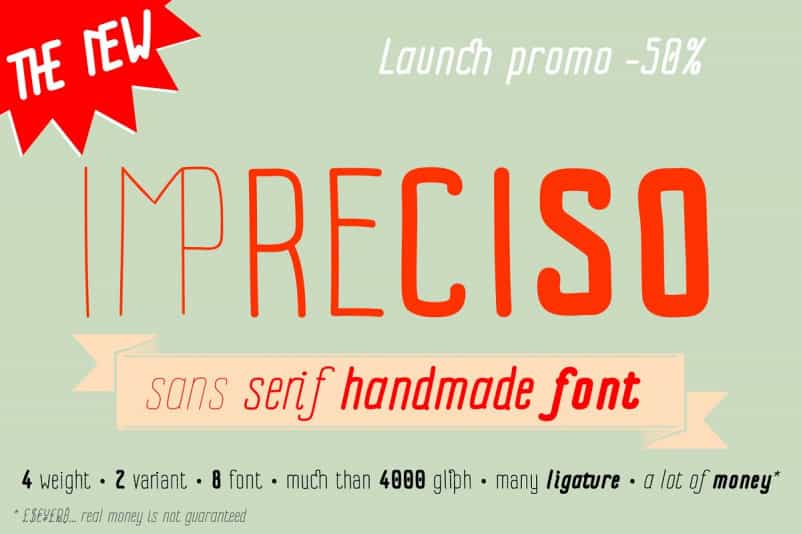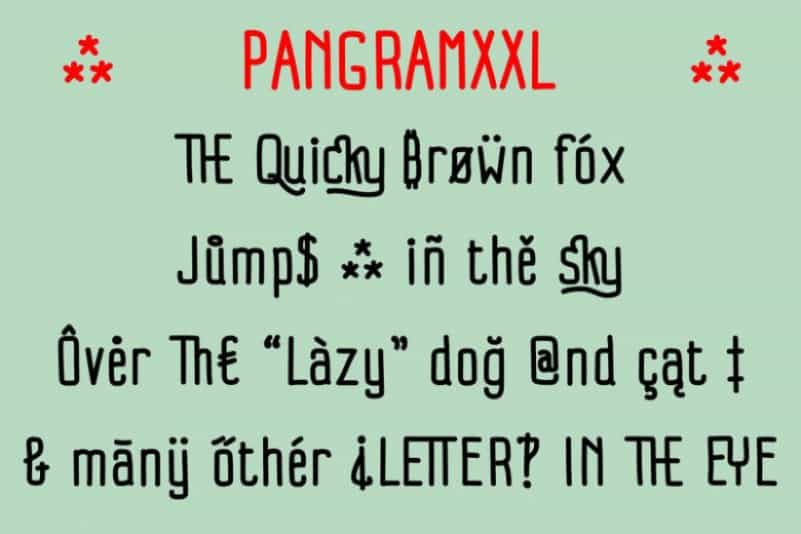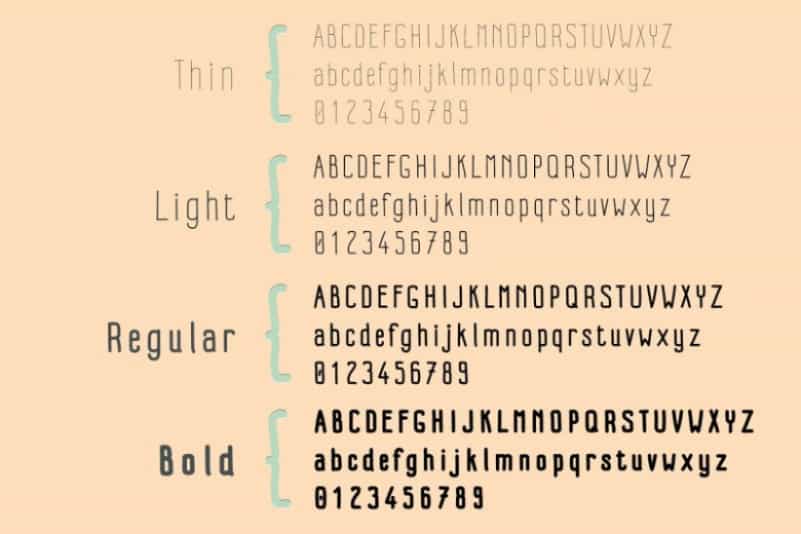
Introducing Impreciso Font. Impreciso is a brand new sans serif family font, completely handwritten. Each “font family” contain up to 500 total glyph, up to 110 extra ligature opentype feature DLIG, kerning table.